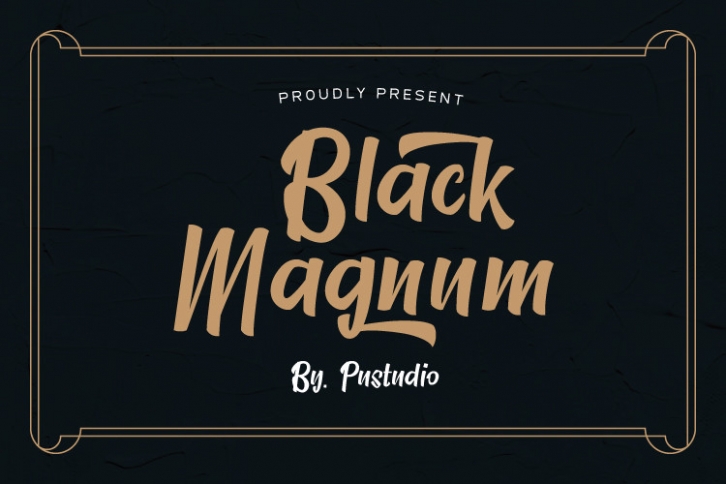
Black Magnum is a clean and paint brushed script font featuring cool and fun characters, perfect for any design. Add this font to your most creative ideas, and see how it stands out! This font is PUA encoded which means you can access all of the amazing glyphs and ligatures with ease!